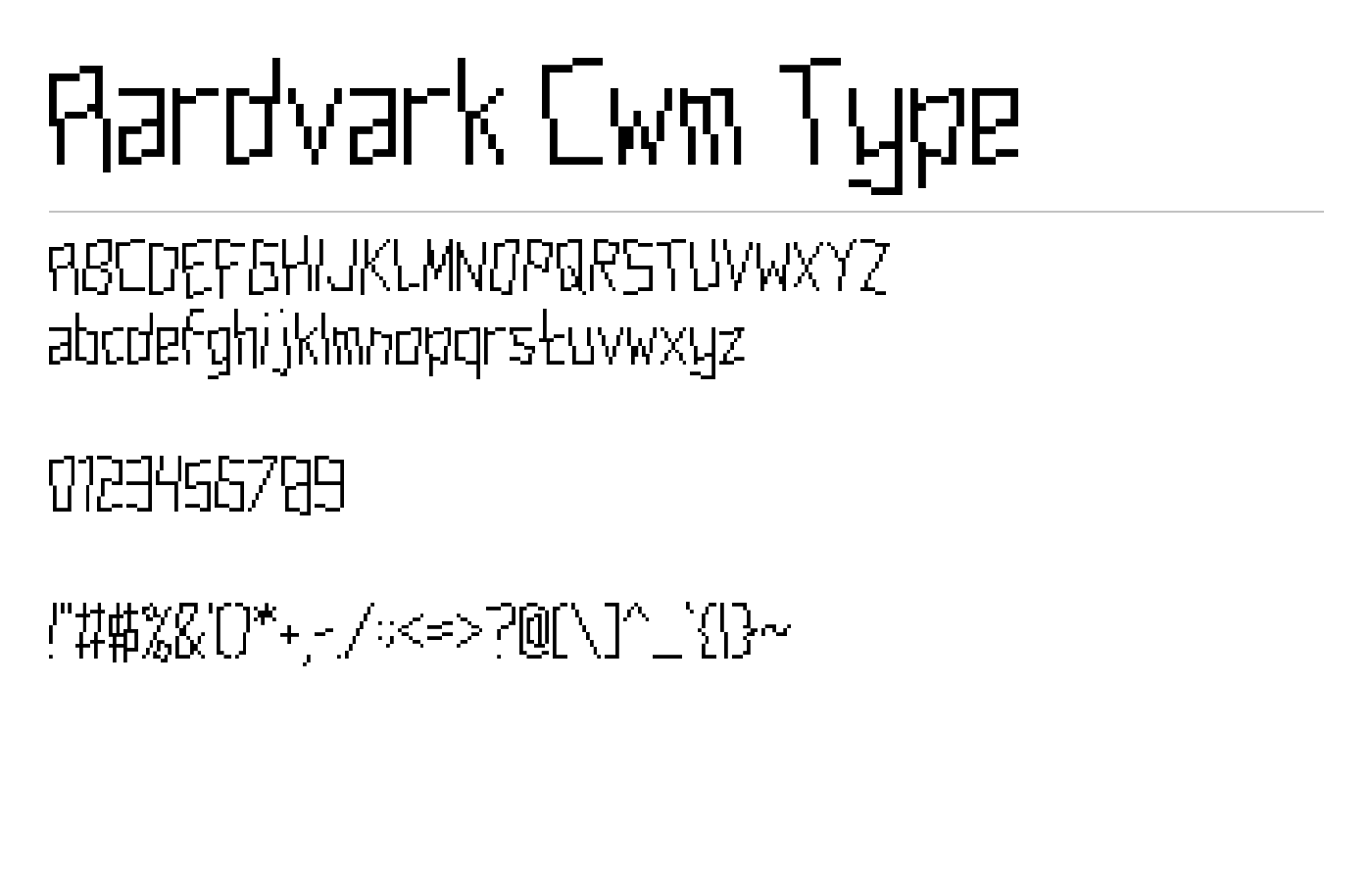
Aardvark Cwm Type is a pixelated sans serif font that captures a retro computer or video game aesthetic with its blocky and geometric letterforms. It features a narrow width, uniform stroke weight, and a consistent x-height, making it highly readable in digital or low-resolution contexts. This font is perfect for tech-themed projects, digital art, and retro branding where a nostalgic yet modern look is desired.
Aardvark Cwm Type Font
About Aardvark Cwm Type Font
| Font family | Aardvark Cwm Type Font |
| Designer | Andrew McCluskey |